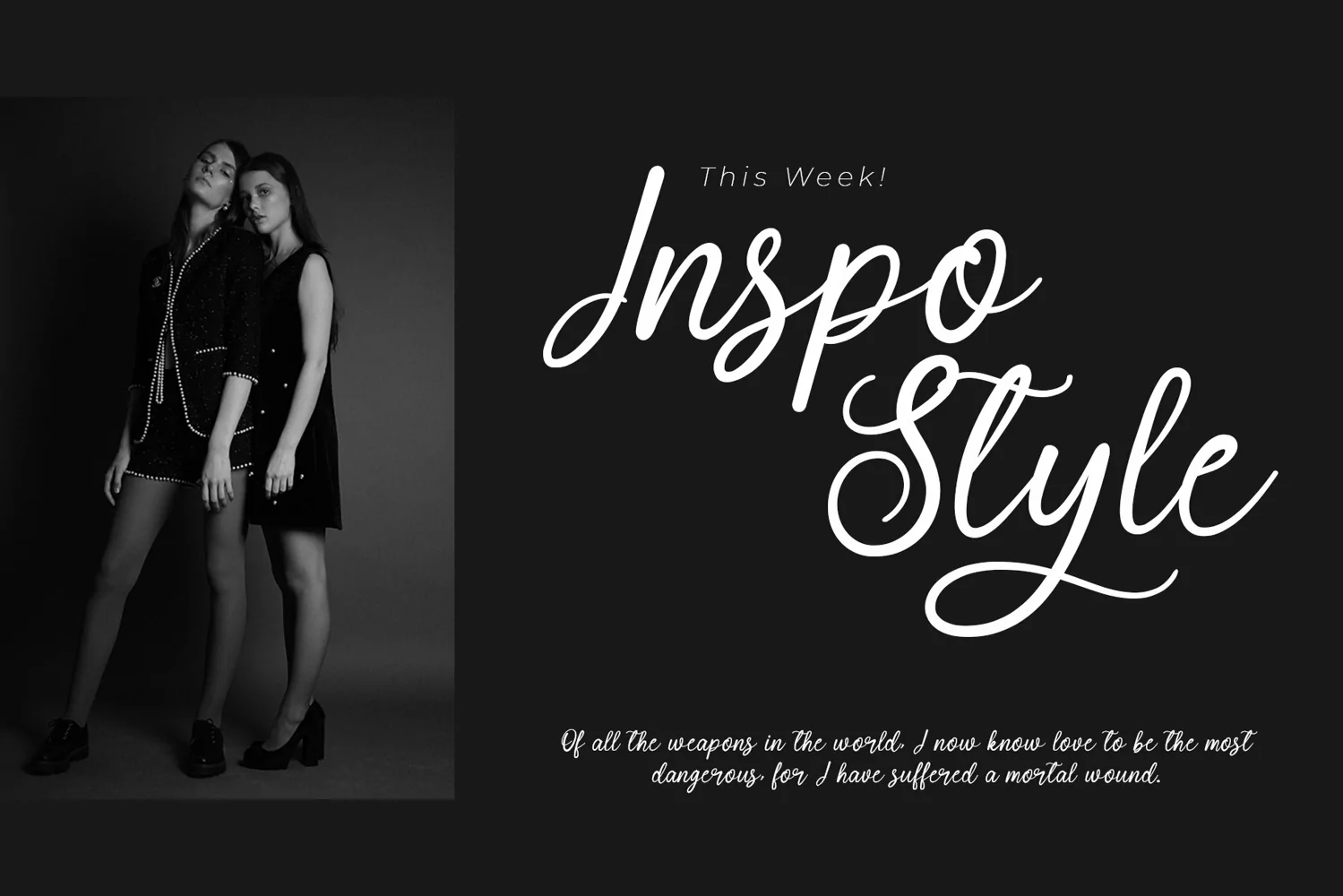
For You! - Beautiful Modern Calligraphy Font
For You! is a simple modern calligraphy font, with curves and lines are so soft that makes this font look pretty and realistic.
With 327 Charachters, For You! is perfect to all your design project, like invitation card, product logo, food brand logo and much more.
For You! also supported with extra character that included in : stylistic set 01 - stylistic set 08.
that will help you get beautiful style with your own creation.